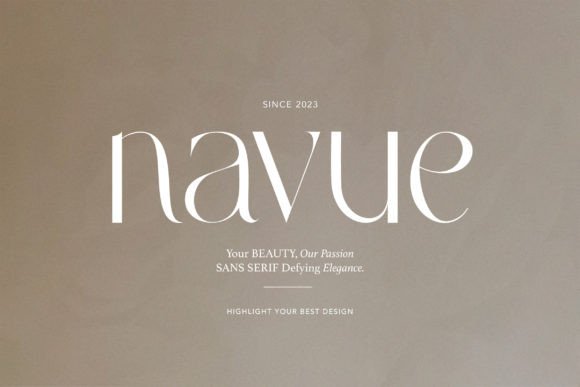
Introducing Navue Font, the ultimate choice for those seeking the perfect blend of elegance and femininity in their typography. Crafted by the talented designer Tammami, this sans serif font is here to revolutionize your product branding and elevate it to new heights.
With its sleek and stylish design, Navue Font is sure to captivate the attention of your target audience. Its elegant curves and smooth lines create a sense of sophistication and class, making it the ideal choice for any display or print materials.
Whether you're looking to create eye-catching banners, captivating posters, or stunning advertisements, Navue Font has got you covered. Its versatility knows no bounds, making it suitable for a wide range of purposes. From websites to packaging, from business cards to social media graphics, this font is your ultimate tool to make a lasting impression.
But Navue Font is not just about aesthetics. It's about creating a powerful emotional connection with your audience. When they see your beautifully designed materials, they won't just see words on a page. They'll feel the passion, the creativity, and the dedication that went into crafting your brand.
Picture this: your logo shining brightly on a LED display, drawing in customers from afar. Navue Font is the best font for LED displays, ensuring that your message stands out and captures attention. Its clarity and readability make it perfect for any size or format, guaranteeing that your brand will shine like never before.
So why settle for ordinary fonts when you can have extraordinary? Navue Font is the key to unlocking your brand's true potential. With its captivating charm and versatility, it's the secret ingredient that will set you apart from the competition.